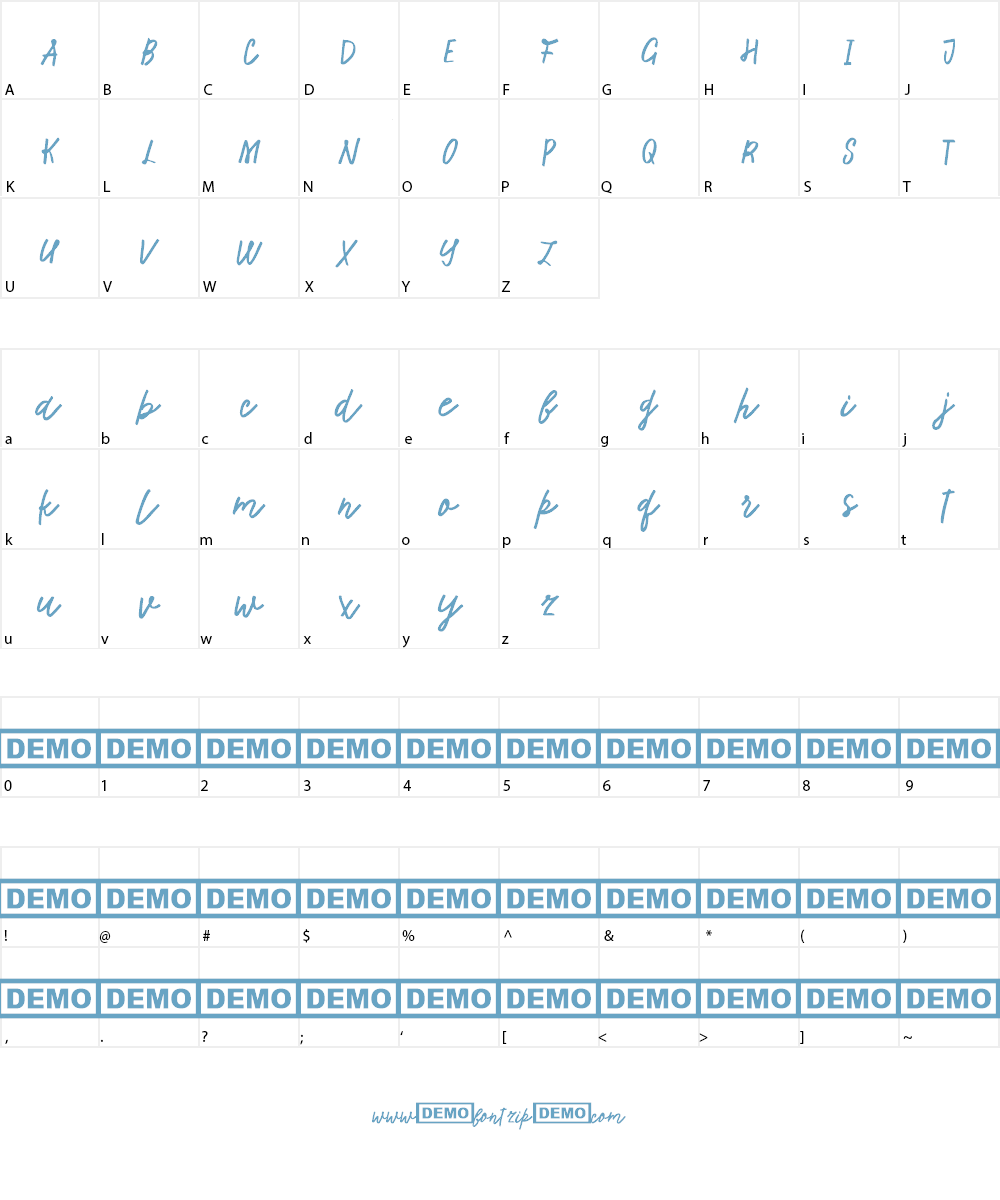
Introducing my new font Tadworth with its pleasant and elegant style. If you want to add a certain charm, appeal and allure in your projects, Tadworth is just what you need.
Full version of Tadworth comes with uppercase, lowercase, standard punctuation, numerals and special letters for most of the European languages.